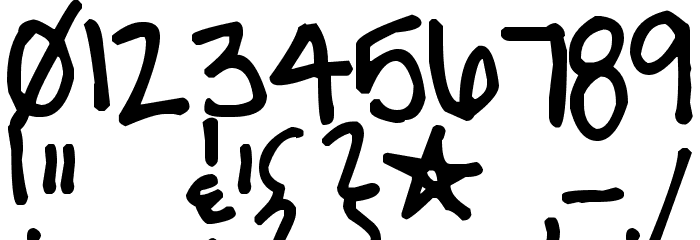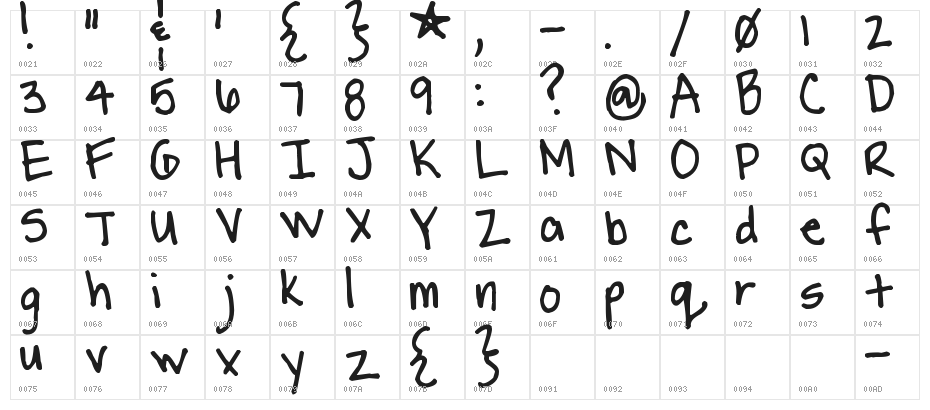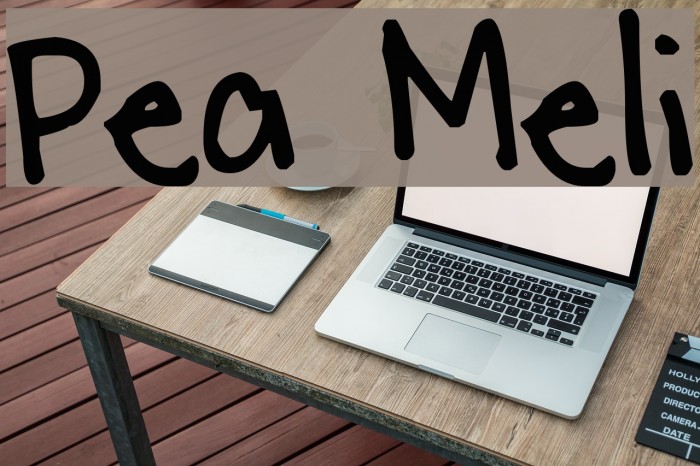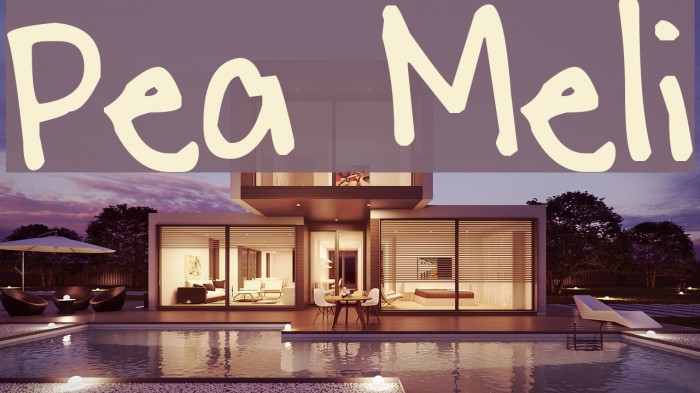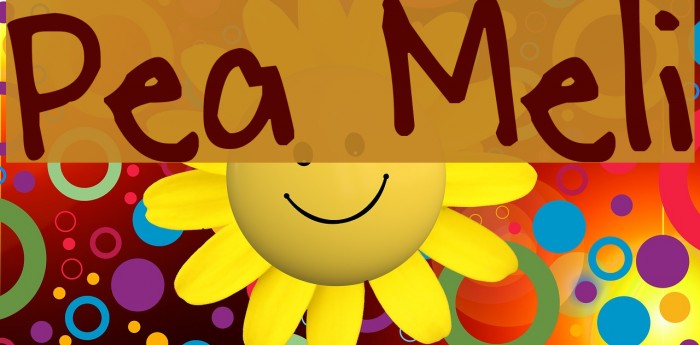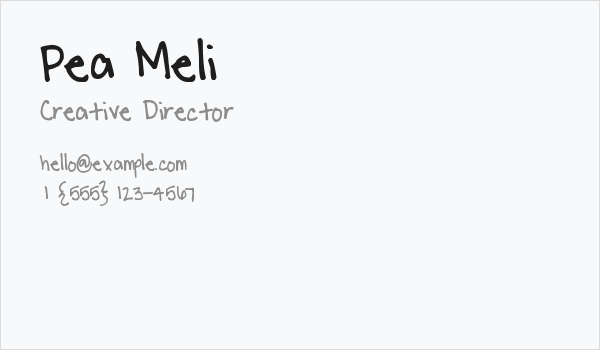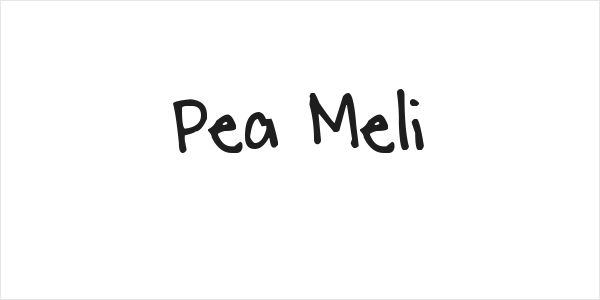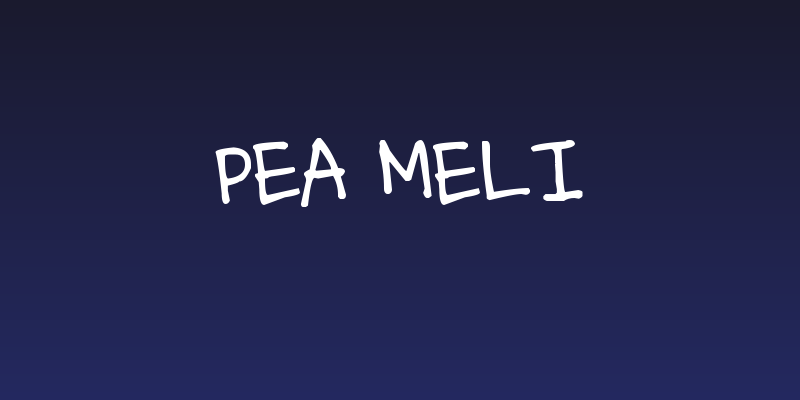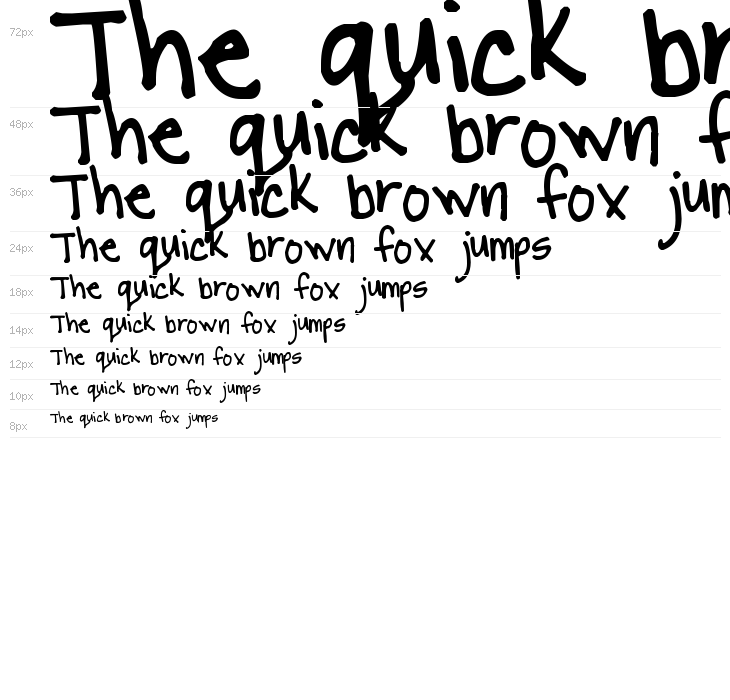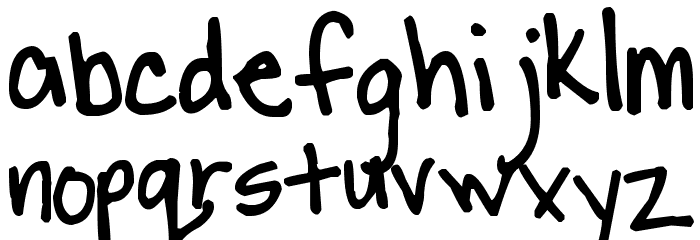
Pea Meli Font
Pea Meli Description
This playful and informal font features a handwritten style with a casual, friendly appearance. The characters are slightly irregular, giving it a personal touch that mimics natural handwriting. The strokes are bold and consistent, with rounded edges that enhance its approachable feel. The uppercase and lowercase letters maintain a consistent style, while the numerals and special characters blend seamlessly with the overall design. This font is perfect for projects that require a personal, human touch, such as invitations, greeting cards, or playful branding materials.
Overall StyleCasual, Playful
Use CaseHeadlines, Informal text, Personal projects
Proposed ProjectsIdeal for invitations, greeting cards, playful branding, and personal projects.